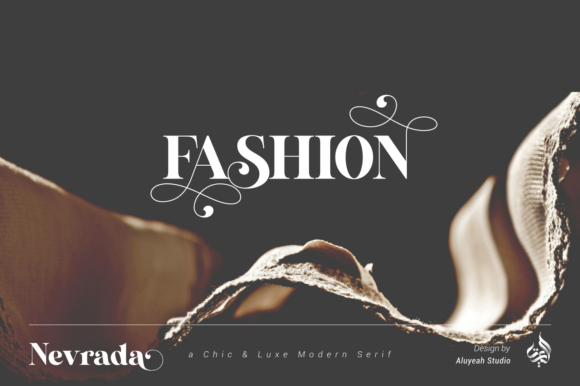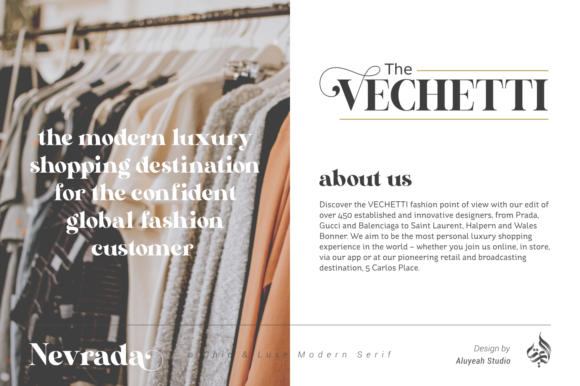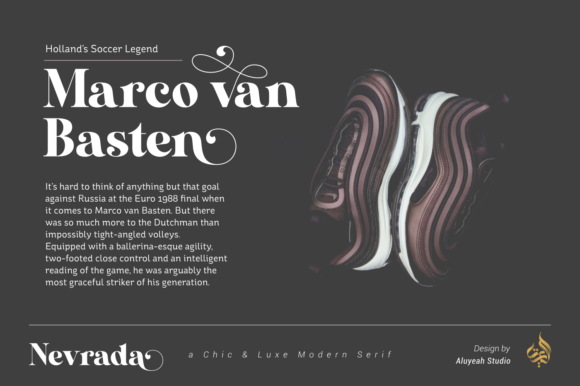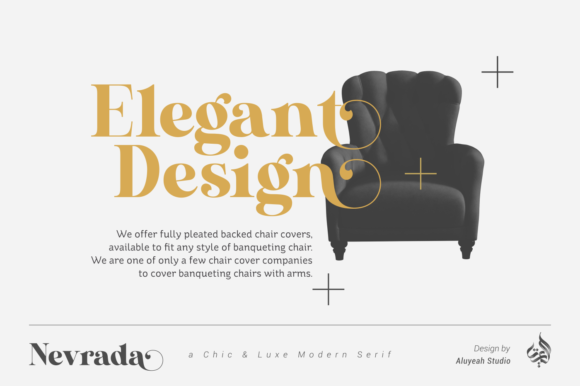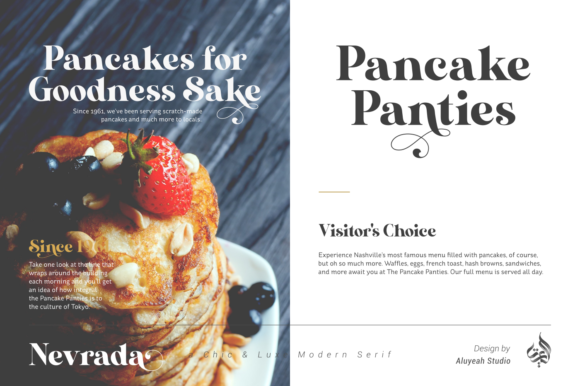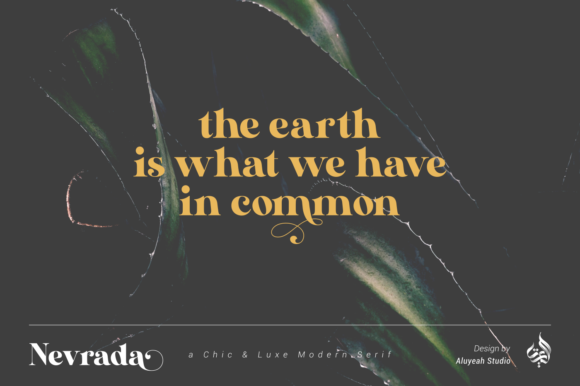
Introduction to AL Nevrada Font
Nevrada is a stunning and cool display font that will effortlessly turn any design project into a true standout.
Nevrada is a stunning and cool display font that will effortlessly turn any design project into a true standout!
Key Features of AL Nevrada Font
Why Choose AL Nevrada Font?